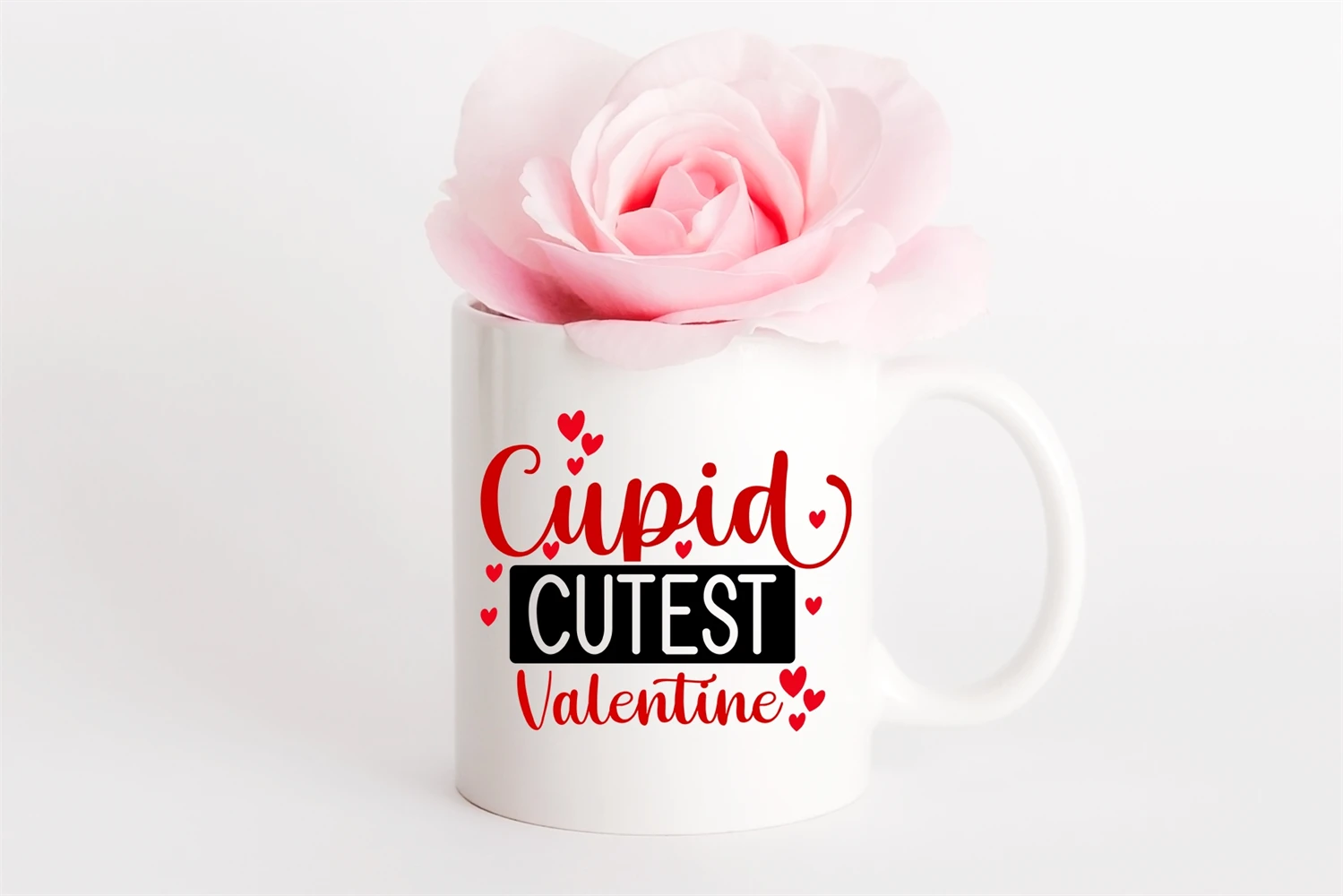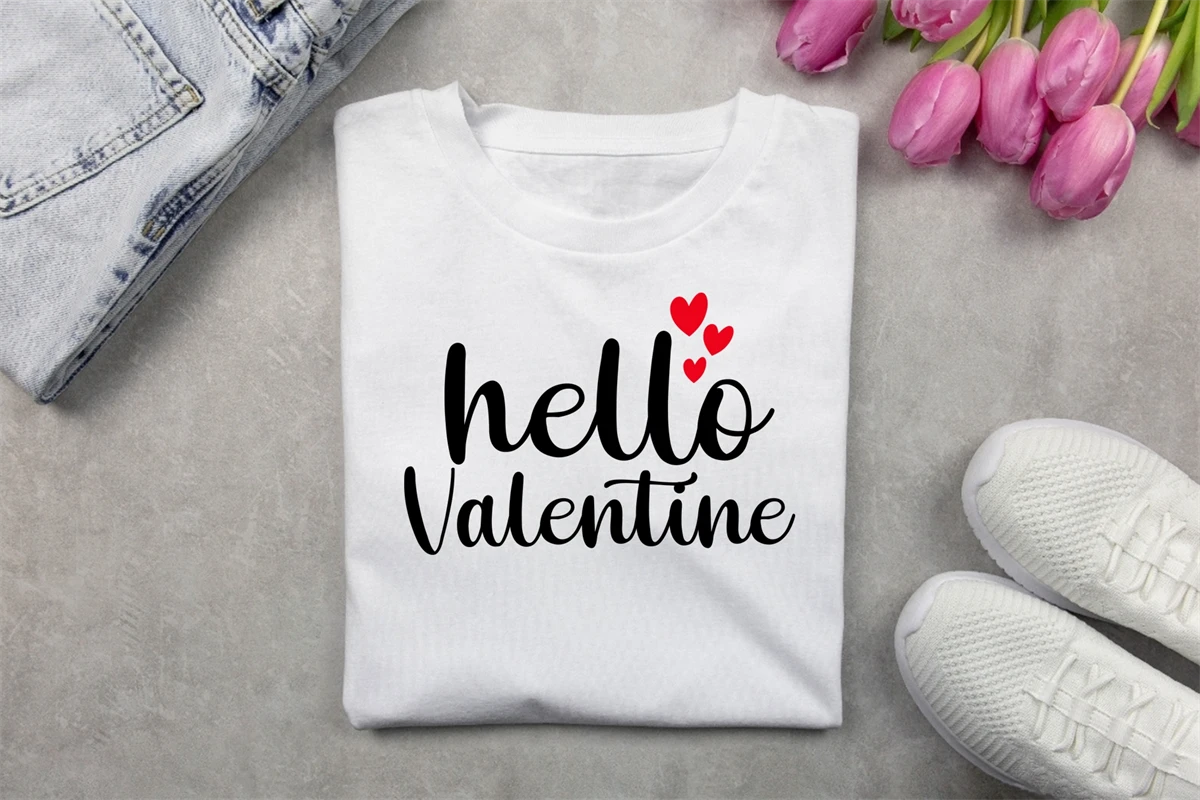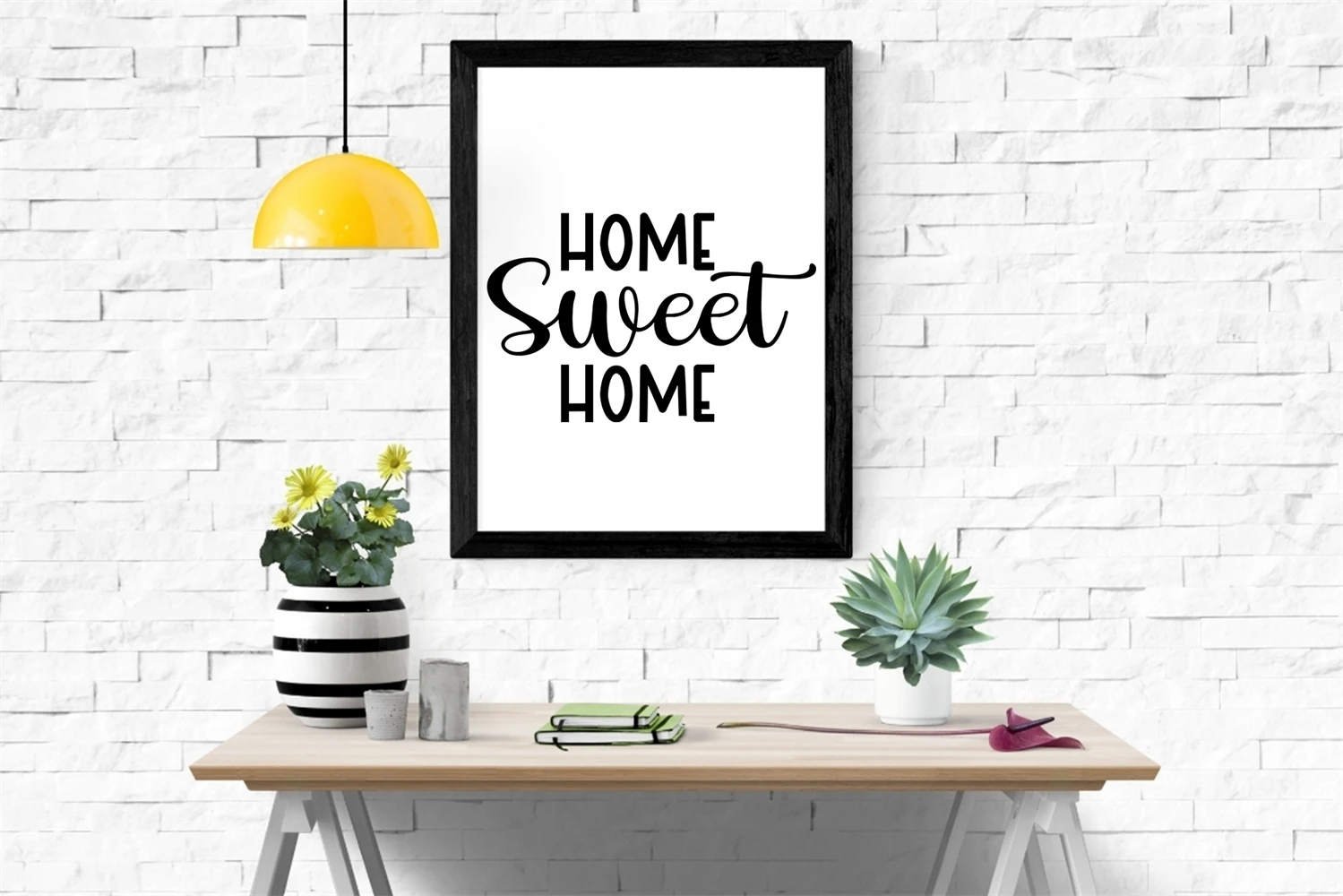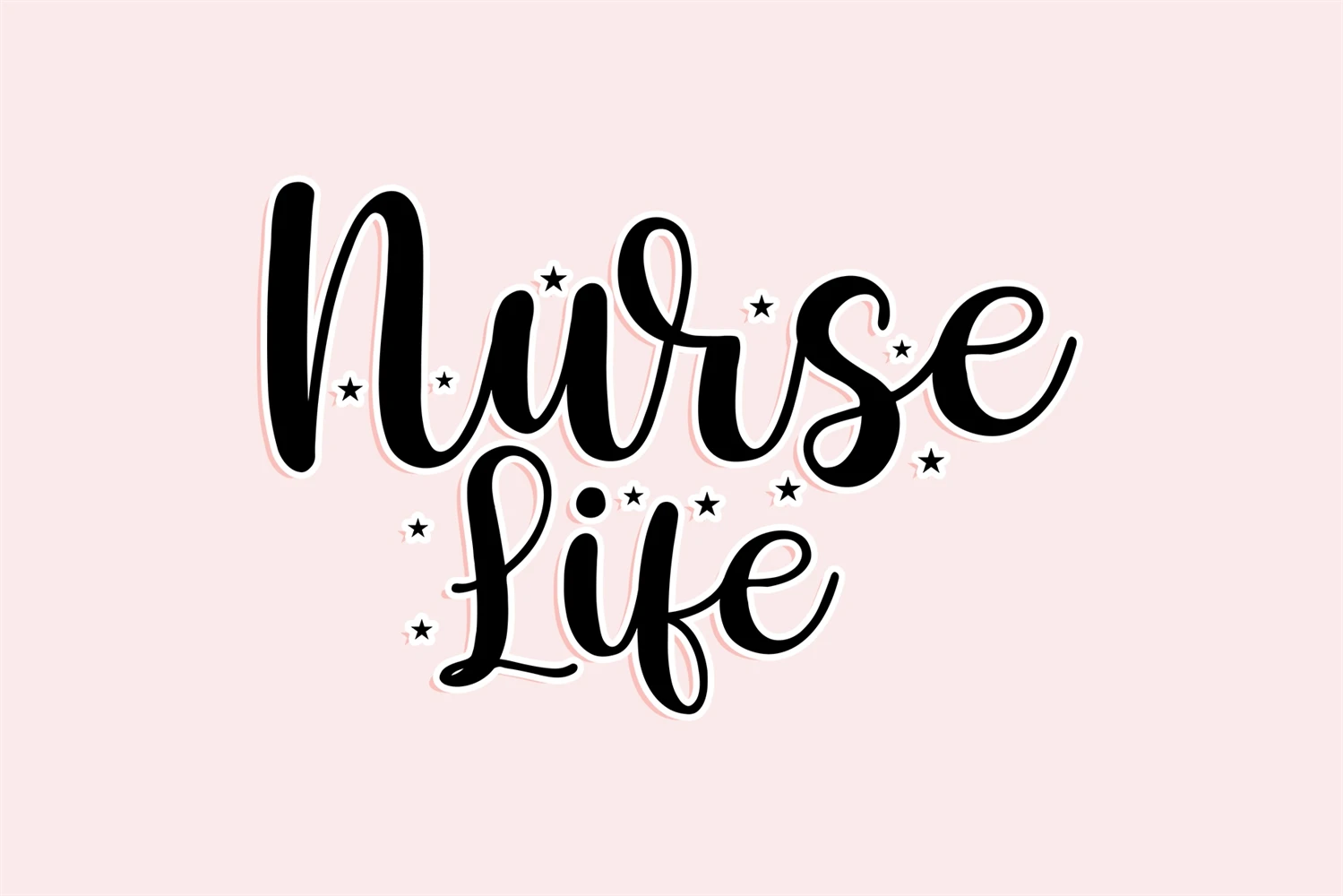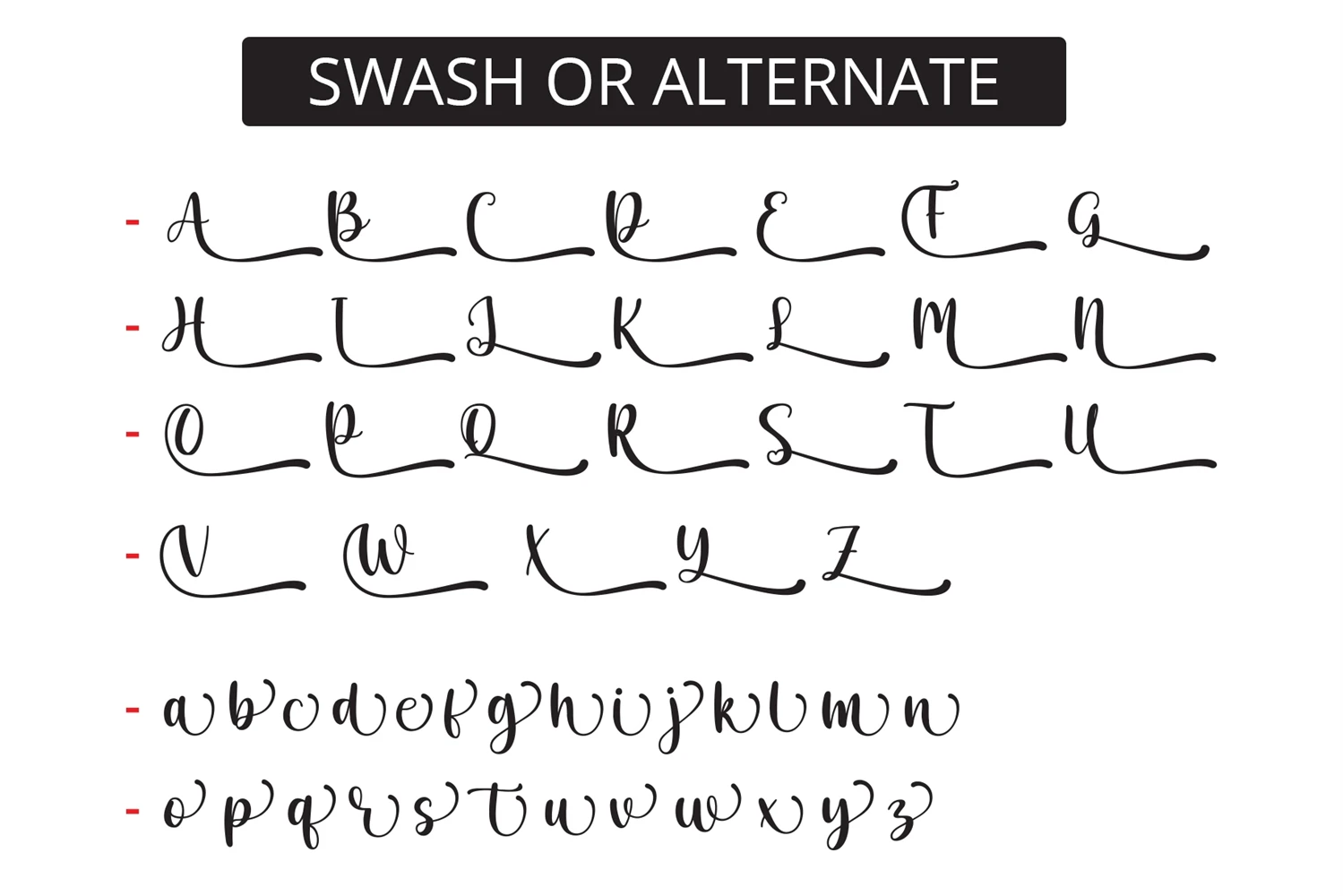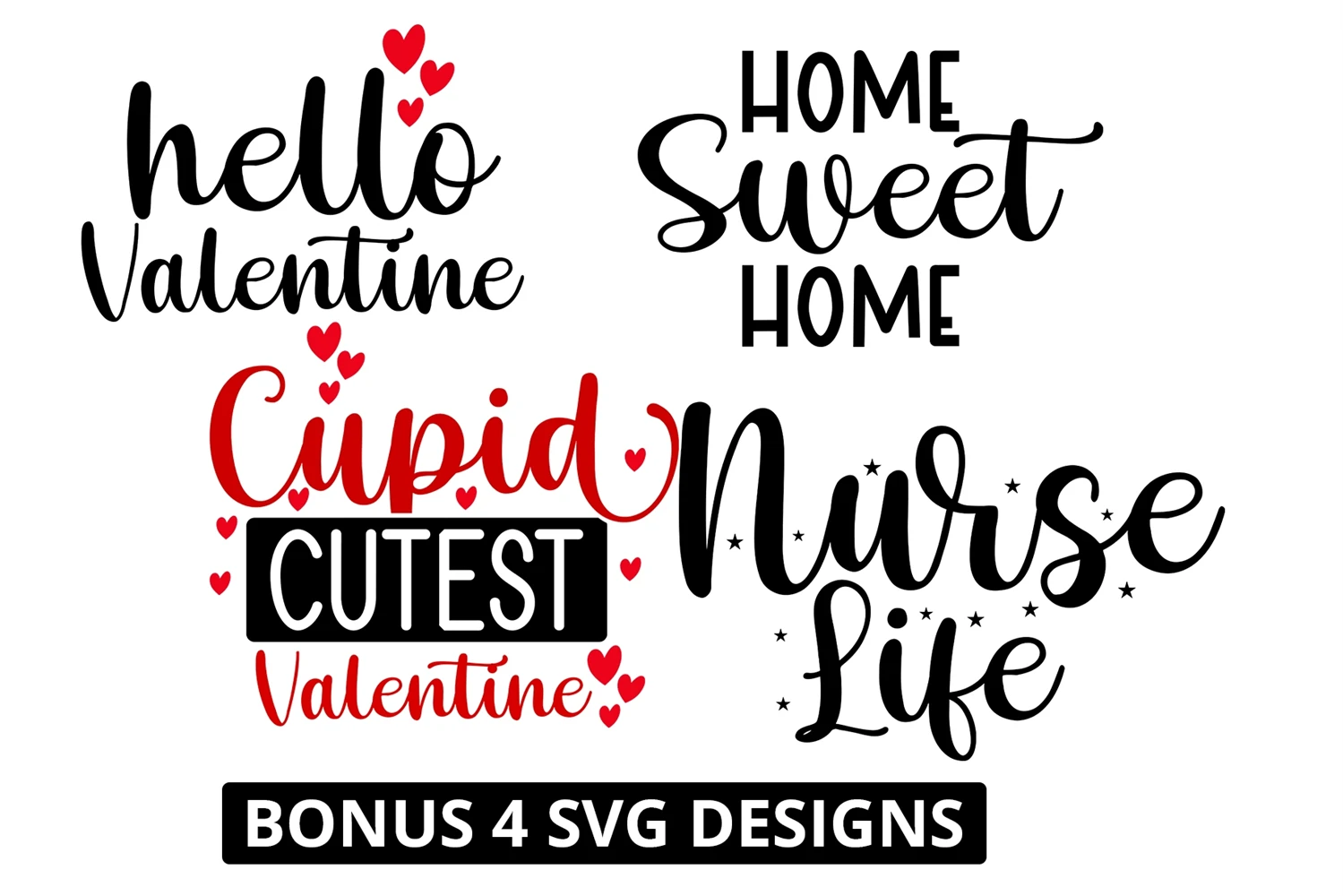
Marriage Script Handwritten Script Font.
This font is perfect for SVG designs, shirts, crafts, procreate, Cricut projects, branding, blogs, logos, invitations, and more!